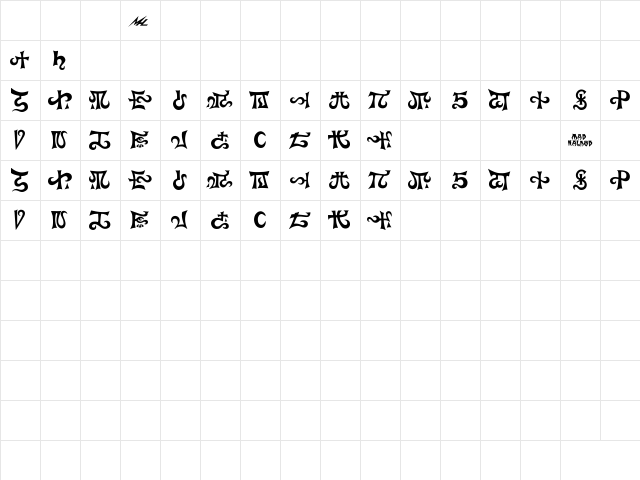
Eltharin Bold Font Preview
Eltharin Bold
Design Context for Eltharin Typeface
Eltharin is a composed and adaptable typeface that performs quietly and consistently across a wide range of design contexts. Its bold stroke weight gives it real presence on the page.